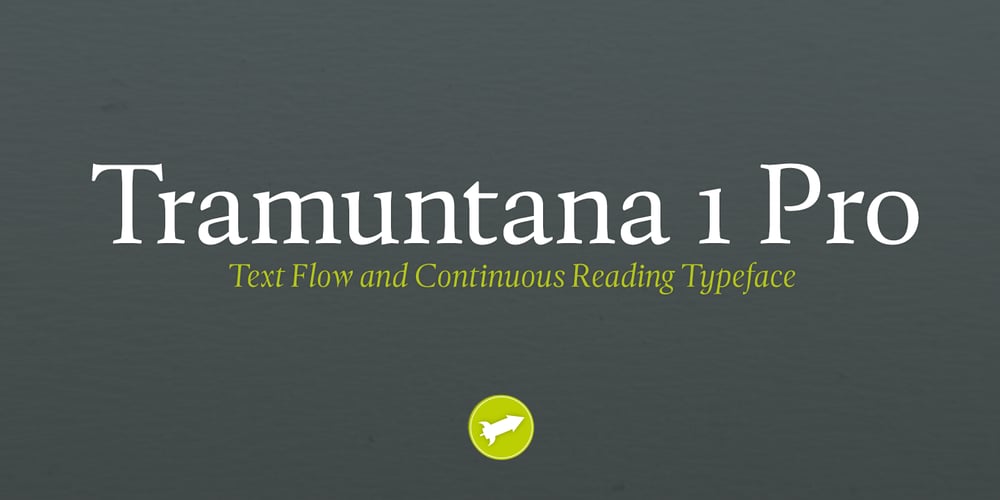
Tramuntana 1 Pro
Tramuntana 1 Pro font
Tramuntana 1 Pro Font Family was designed by Ricardo Santos and published by Vanarchiv. Tramuntana 1 Pro contains 24 styles and family package options. Tramuntana 1 Pro was inspired by the late Renaissance and Mannerist spirit and it was designed by Ricardo Santos during 2009 for his Master in Advanced Typography (Eina-Barcelona). This project was also inspired by Robert Granjon, Garamond and Sabon typefaces. The name tramuntana (Tramontane) is the Catalonian word for the cold wind that comes from the Pyrenees mountains and goes as far as the Balearic Islands. It was designed for editorial purposes (books and magazines). This typeface family contains different font versions for different optical sizes, caption, text, subhead and display, all of them with different x-height proportions and contrast. The serifs are asymmetrical and the letterforms have geometric modulated strokes which simulates the calligraphic variations. Its design approach gives a dynamic feeling, contributing to text flow and continuous reading. The kerning has been optimized for Baltic languages and Western, Southern, and Central European languages.